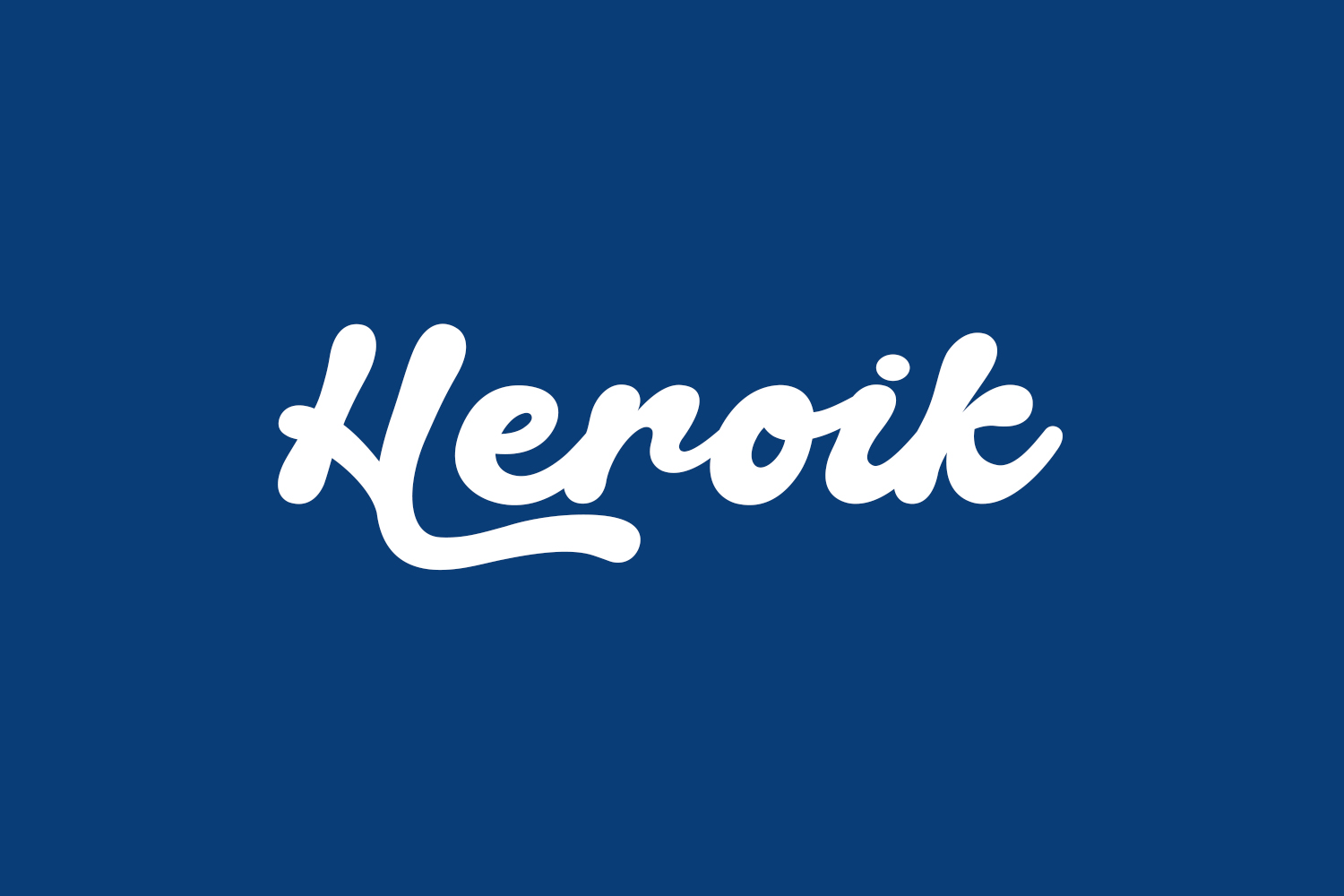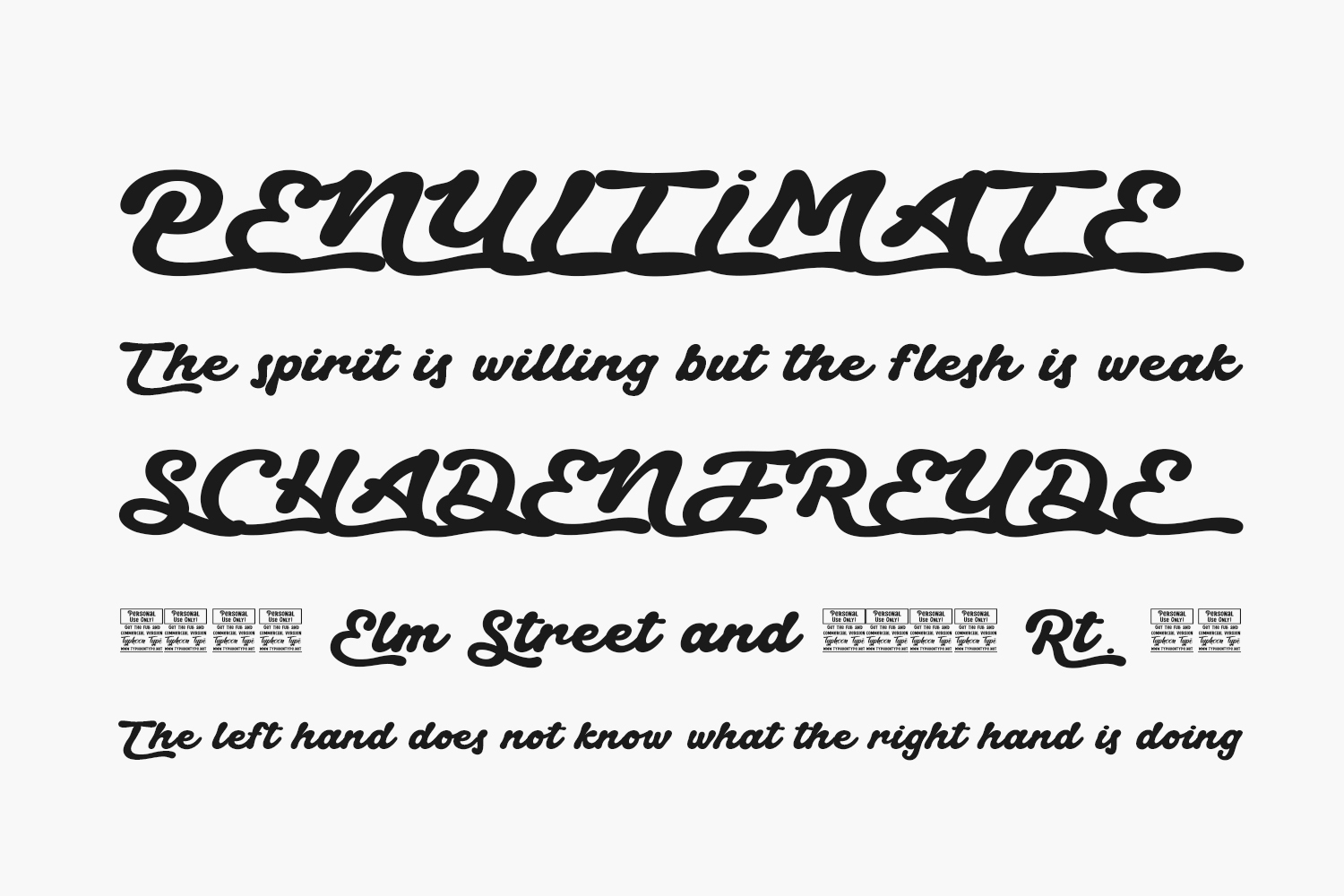
Heroik Free Font is a stunning English font that exudes both sophistication and individuality. This script-style typeface showcases the artistic beauty of rounded brush strokes, resulting in a captivating and visually striking design. Embrace the elegance and uniqueness of Heroik as it adds a touch of charm to any project or creative endeavor. Heroik Free Font is a demo and free for personal use only. Please purchase the full version for commercial use.
Designed by Typhoon Type™